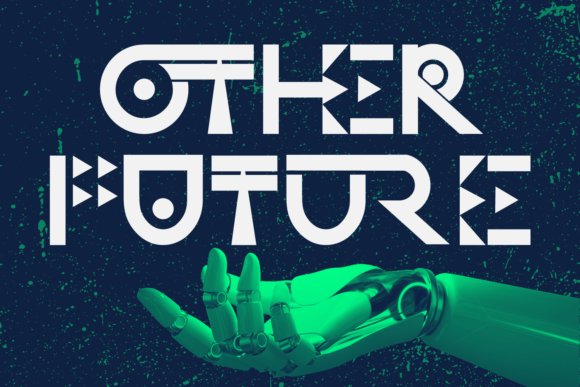
Prepare to embark on a transformative typographic journey with Other Future Font, a visionary display font that transcends the boundaries of imagination. Discover a world where sleek geometric shapes dance harmoniously, evoking the allure of future cyberspace and spaceage technology. Other Future Font is not just a font; it's a portal to a realm of captivating visual storytelling.
Immerse yourself in the boundless possibilities of Other Future Font, a font crafted to ignite the imagination and captivate the senses. Its meticulously designed characters exude a striking visual style, making it the perfect choice for projects seeking a futuristic, technological, or gaming aesthetic. Unleash your creativity and bring your designs to life with Other Future Font.
With Other Future Font, transcend the ordinary and embrace the extraordinary. As you craft magazine titles, posters, brochures, movie titles, Instagram posts, YouTube thumbnails and titles, shop names, company names, business cards, packaging, and more, you'll find that Other Future Font seamlessly elevates your designs, leaving a lasting impression on your audience.
Experience the versatility of Other Future Font, a font that effortlessly adapts to a myriad of design projects. Its inherent charm and adaptability make it a must-have for designers seeking to make a statement. Whether you're creating sleek magazine titles or captivating YouTube thumbnails, Other Future Font delivers exceptional results, ensuring your designs stand out from the crowd.